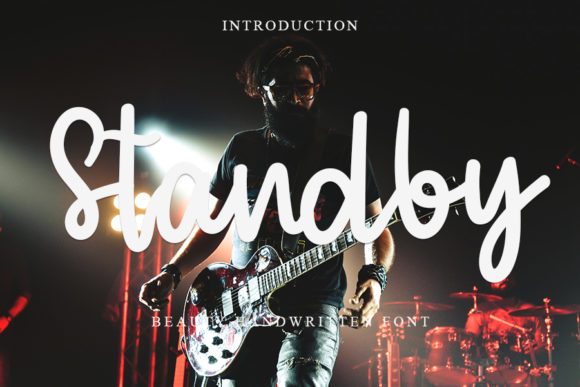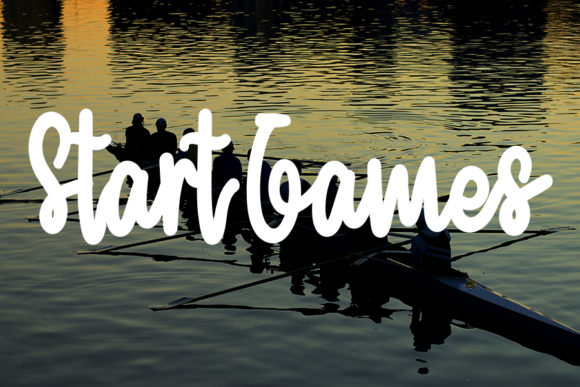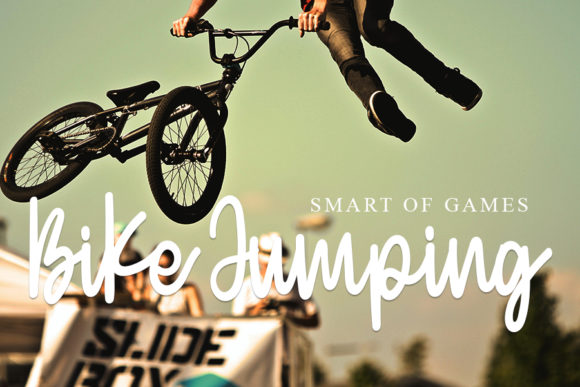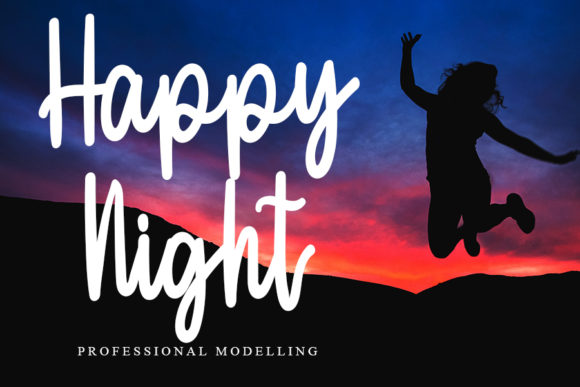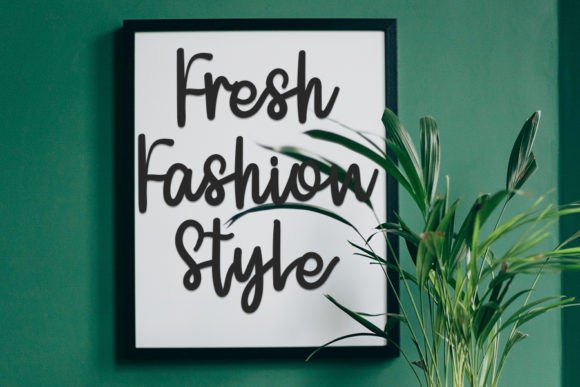
Standby Font
About Standby Font
Standby is a cool, trendy and neat handwritten font. Simple but with a strong visual effect, this font will instantly make your creation more appealing than any others.